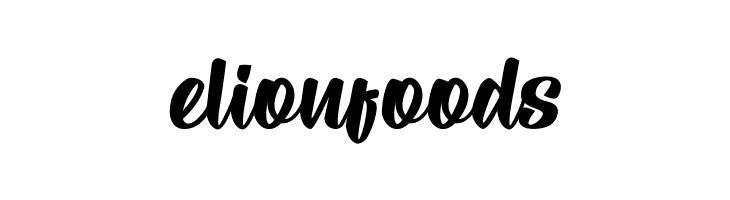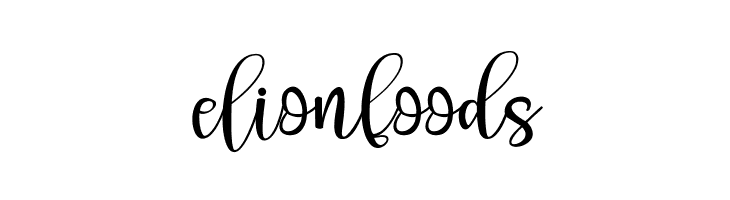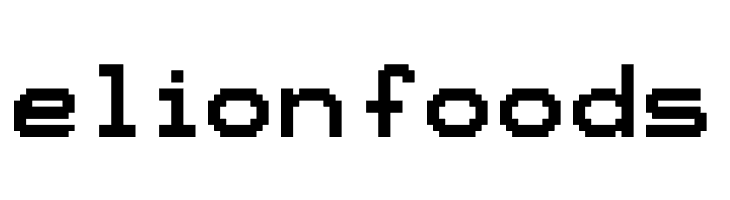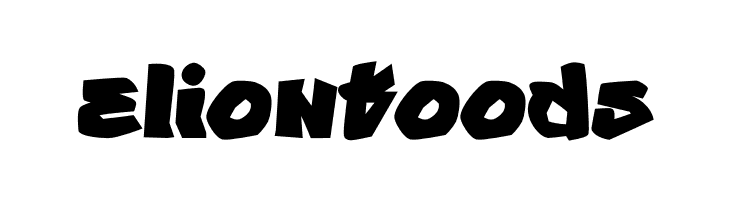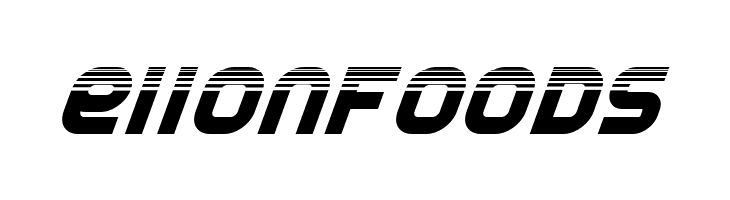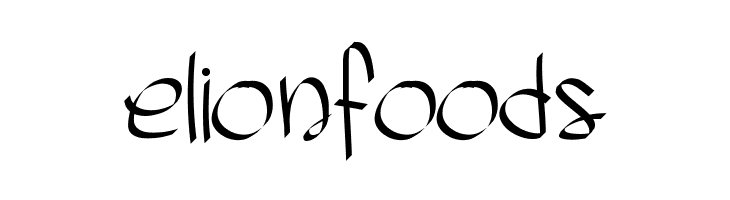
A classic serif font with a semi-bold weight, combining elegance and readability.
A classic serif font with elegant strokes and medium contrast, ideal for traditional and sophisticated designs.
A refined, light, and italic serif font with classic elegance.
A bold, textured font with a vintage, rugged appearance.
A modern, bold typeface with clean lines and geometric influences.
A classic serif font with elegant strokes and refined proportions.
A bold, rounded font with a modern and playful style.
A bold, playful font with fragmented shapes creating a dynamic and energetic look.
A diverse set of decorative and functional arrow symbols with unique styles.
Hand-drawn, decorative arrow and symbol dingbat font.
A playful and elegant script font with flowing, cursive letterforms.
A pixelated, retro-style font with a digital, blocky appearance.
A pixelated, retro-style font with a blocky, geometric appearance.
A playful, decorative font with cartoon-like patterns and bold characters.
An ornate blackletter font with bold, intricate details and a Gothic flair.
A bold, modern font with thick strokes and tight spacing, ideal for impactful designs.
A bold, decorative font with a distressed, vintage texture.
A dynamic, cursive font with bold, expressive strokes and a lively, artistic flair.
A bold, angular serif font with a striking and edgy design.
A bold, dynamic font with racing stripe accents and a futuristic style.
A decorative, boxed font with a modern and geometric style.
An elegant script font with ornate floral embellishments and flowing lowercase letters.
A bold, geometric display typeface with a modern and edgy style.
A bold, playful font with flowing, decorative elements.
A bold, graffiti-inspired font with angular, energetic characters.
A bold, graffiti-inspired font with angular and edgy characters.
A bold, graffiti-inspired font with sharp, angular edges.
A bold, handwritten-style font with dynamic curves and thick strokes.
A dramatic, edgy font with sharp, jagged edges and a dripping effect.